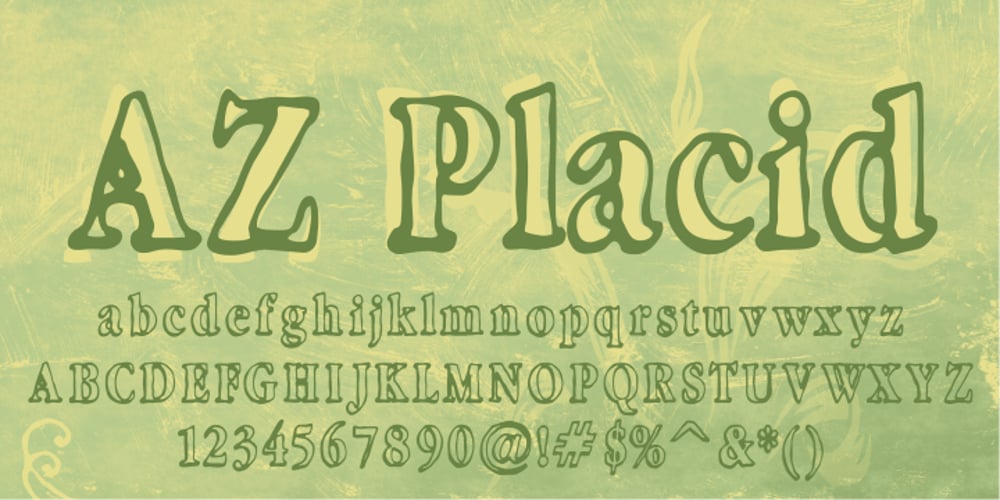
AZ Placid
AZ Placid font
AZ Placid Font Family was designed by published by Artist of Design. AZ Placid contains 1 styles and family package options. AZ Placid font is basically a rough outline that lends well to other Serif fonts. This font utilizes an “old look” to the line work which is designed to have a “worn feel” to it. Ideal for use as headline or sub-head text in you design.